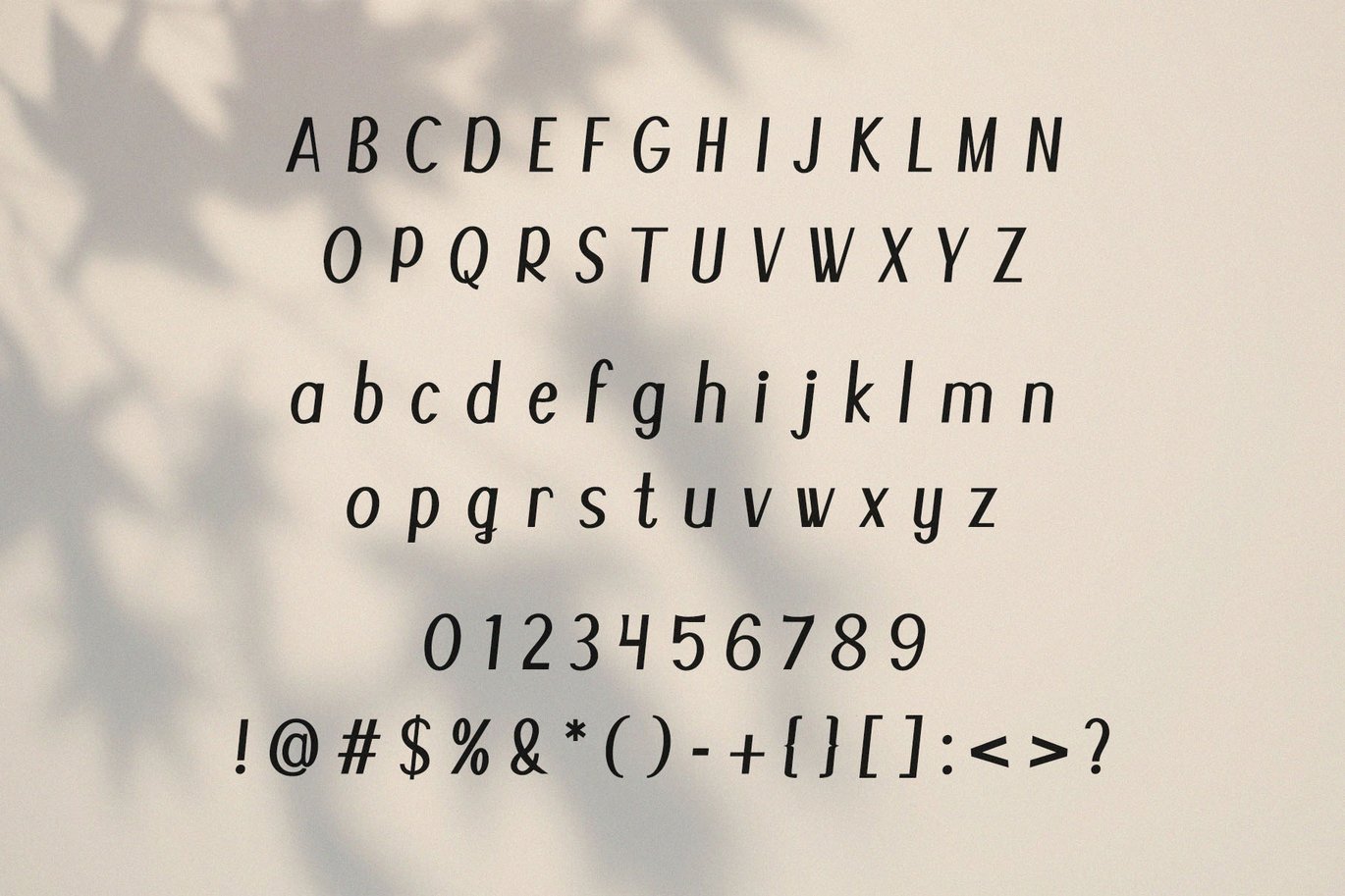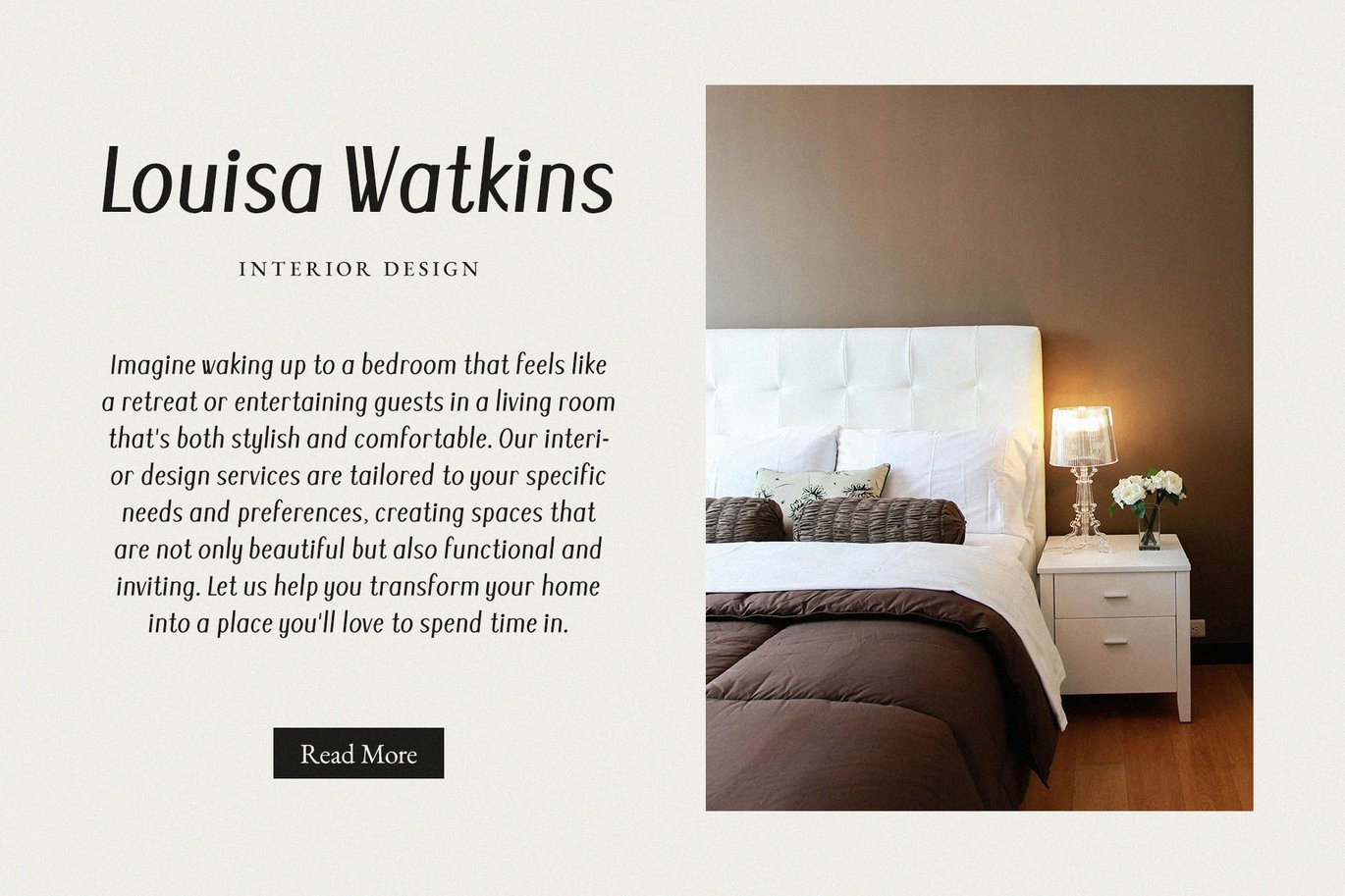
San Andres – Modern Display Sans Serif Font
San Andres – Modern Display Sans Serif Font is a versatile typeface ideal for various projects, including Sans-Serif, logos, branding, posters, blog headers, advertisements. The free version includes a full set of uppercase and lowercase letters, available in OTF, TTF, WOFF format.
San Andres – Modern Display Sans Serif Font